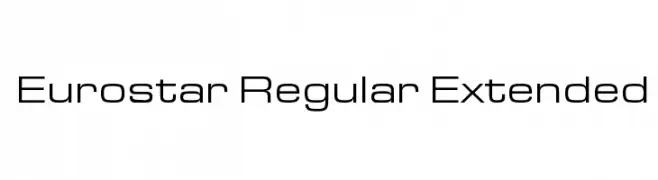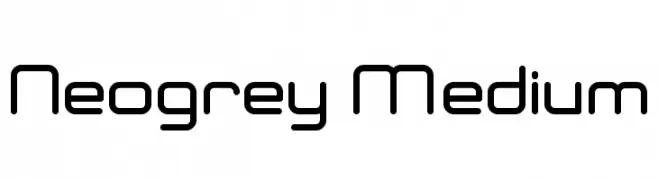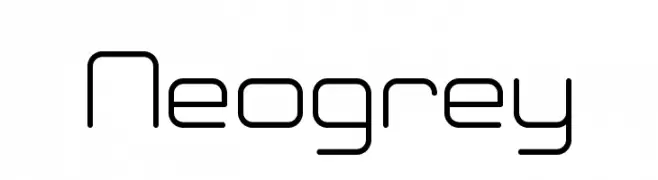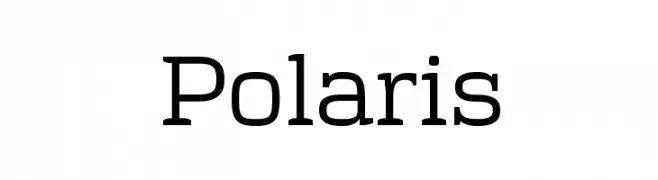
BERNIERRegular-Regular Font
A bold, modern slab serif font with a vintage touch, ideal for impactful headlines.
BERNIERDistressed-Regular Font
A bold, distressed font with a vintage, rugged appearance.
Eurostar Regular Extended Font
A modern, geometric font with clean lines and extended width.
BERNIERShade-Regular Font
A bold, shadowed font ideal for striking headlines and decorative uses.
Remachine Script Personal Use Only Font
A dynamic and flowing script font with elegant curves and a handwritten touch.
Polaris Font
A modern, geometric font with consistent stroke width and clear readability.
Neogrey Medium Font
A modern, rounded font with a geometric and sleek design.
Neogrey Font
A sleek, modern font with geometric and minimalist design.
Dollie Script Personal Use Font
A flowing, elegant cursive script font with a handwritten feel.
DJB Number 2 Pencil Bold Font
A playful, rounded, and bold font with a handwritten feel.
Cartoon Relief Font
A bold, hand-drawn font with a playful, cartoon-like relief effect.
Tipo PRESS Italic Font
A bold, italic font with tight spacing and high contrast, ideal for dynamic designs.
Darkwoman Font
A dynamic, expressive handwritten font with fluid strokes and a natural appearance.
DJB Number 2 Pencil Font
A playful, handwritten-style font with rounded, casual characters.
Sketch Coursive Font
A playful, sketch-like font with bold, textured characters.
DJB Stinky Marker Font
A playful, hand-drawn marker-style font with rounded, bold characters.
DJB Messy Amanda Goes Bold Font
A bold, playful handwritten font with a casual and dynamic style.
Tipo PRESS Font
A bold, modern font with strong, thick strokes and tight spacing.
LoremIpsum Font
A bold, outlined sans-serif font with a modern and playful style.